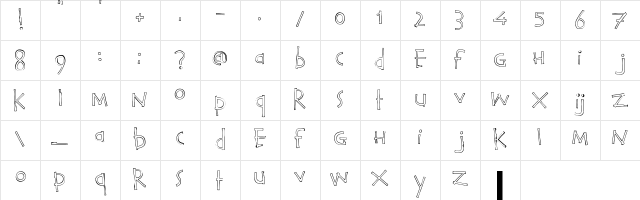
Complete Calvin and Hobbes Outline glyph index. Displaying only characters natively supported by Calvin and Hobbes Outline font.
Calvin and Hobbes is built around its visual character rather than neutral utility - its distinctive forms are designed to make an impression at display sizes.
Font Pairing: Pair with a clean neutral sans-serif for body copy to let Calvin and Hobbes's character lead without overwhelming the composition.
Pro Tip: Use Calvin and Hobbes exclusively at display sizes - it was designed to be seen, not read at length. Let a neutral companion handle body copy.